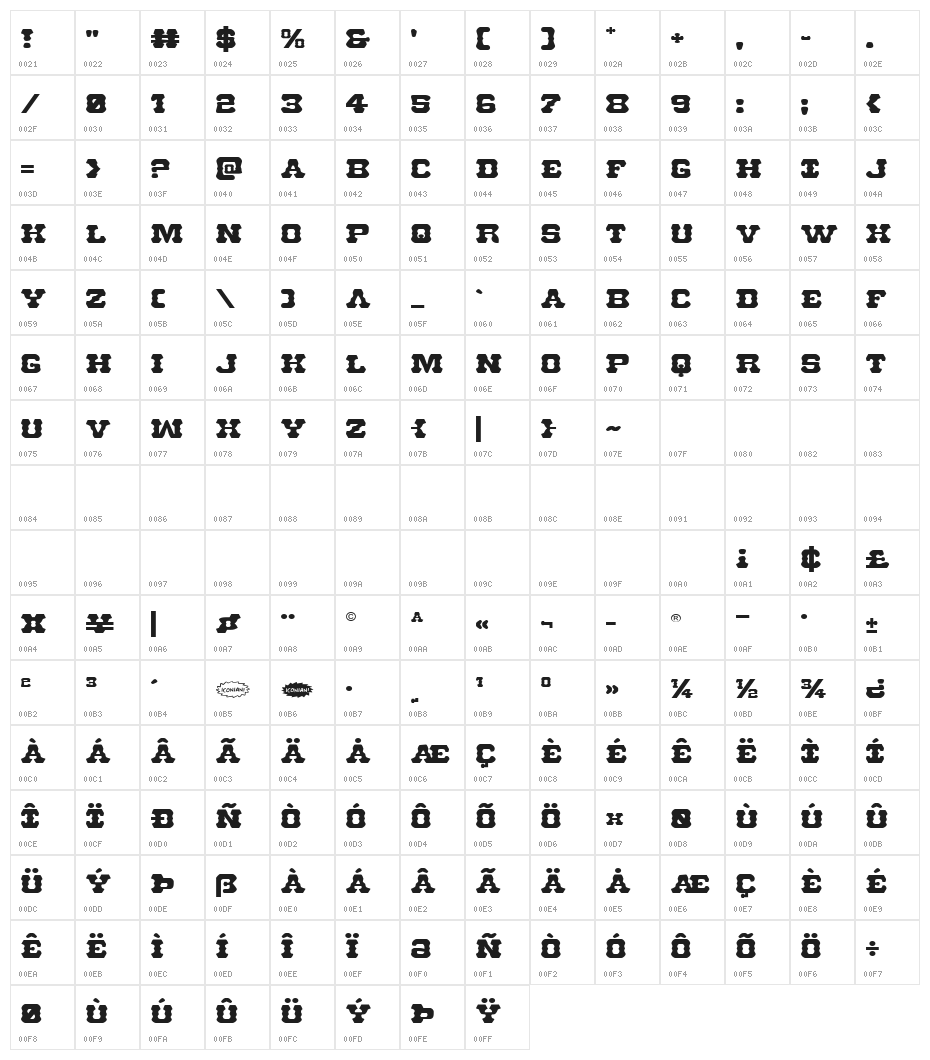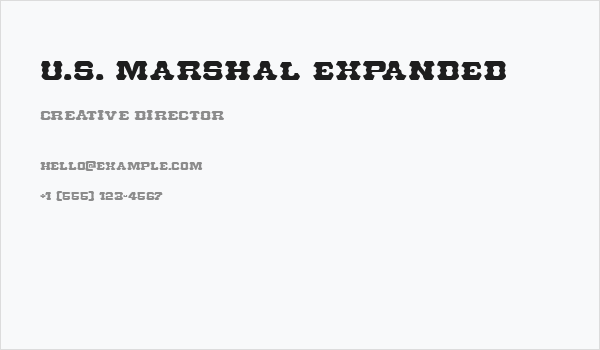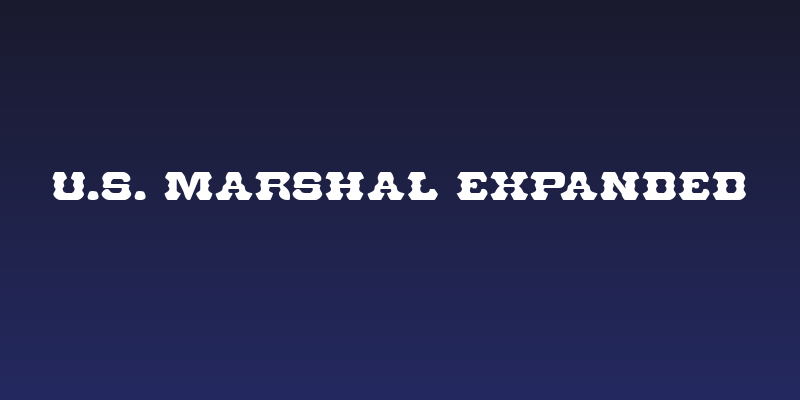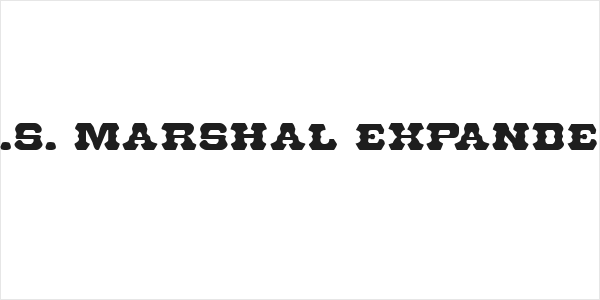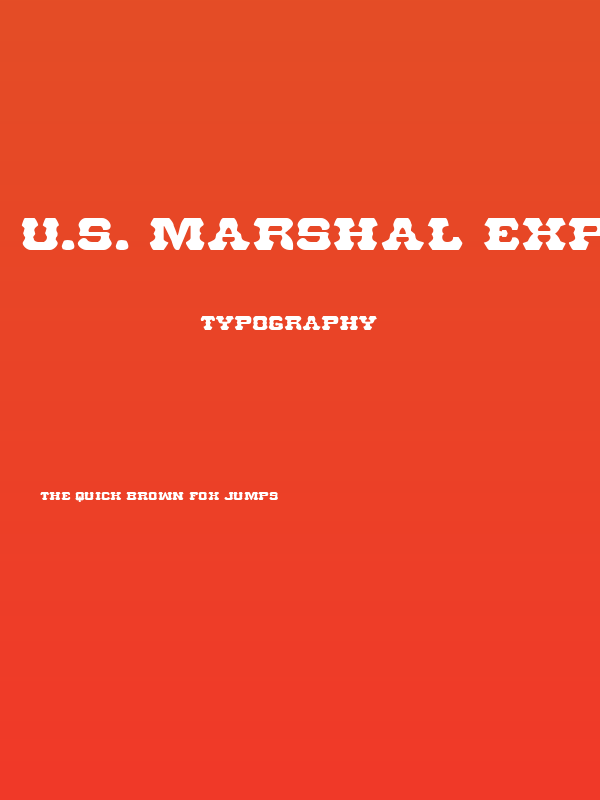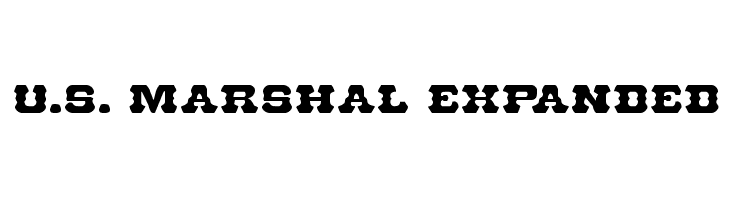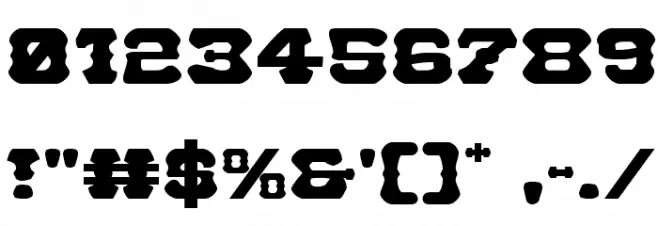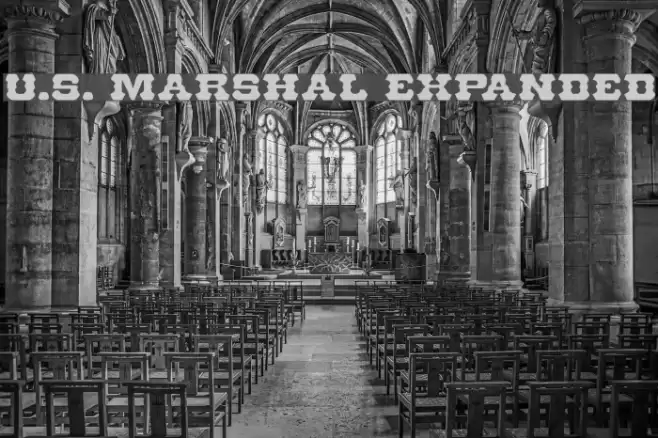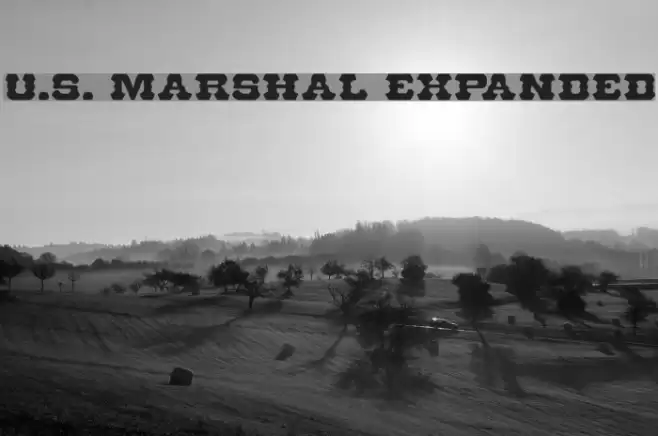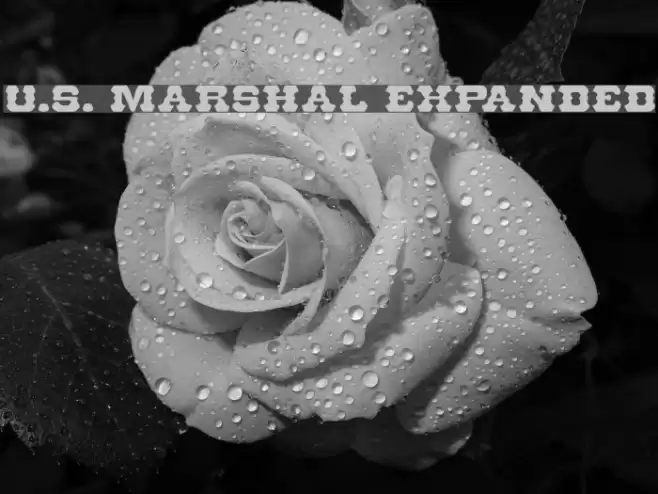
U.S. Marshal Expanded Font
✎ Western
| Cas d'utilisation | Headlines, Logos, Signage |
| Projets proposés | Ideal for Western-themed posters, vintage branding, signage, and adventurous graphic designs. |